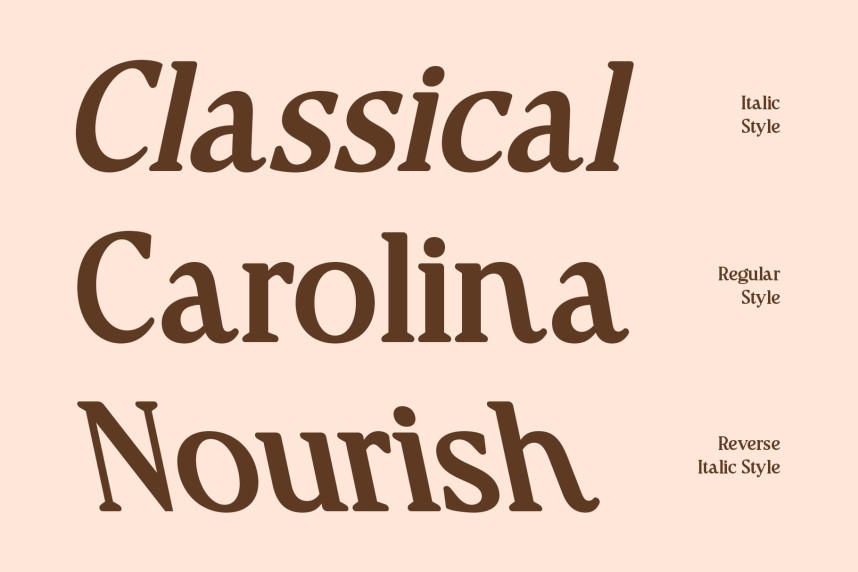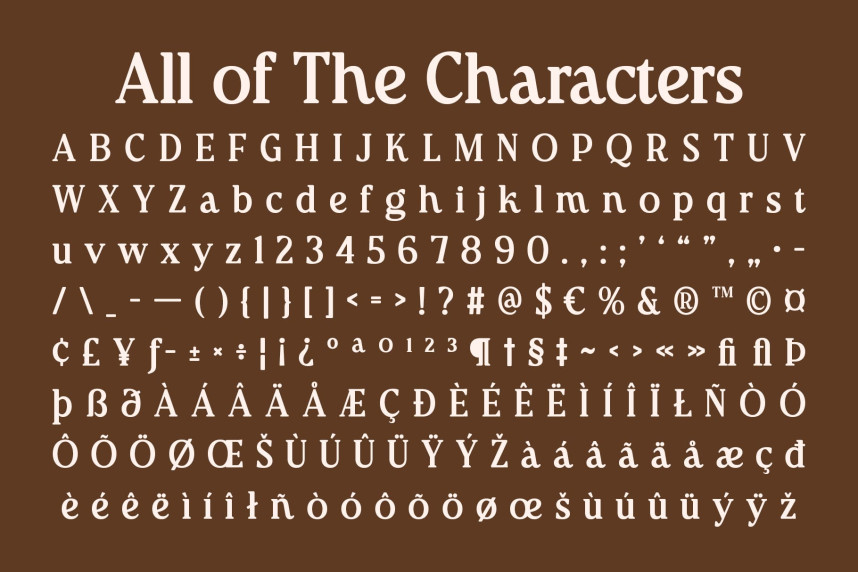
CS Raluca Font
CS Raluca Font – Retro Spirit with Timeless Energy Bold Retro Font with Playful Character. This is a timeless retro serif font that brings the charm of the past into modern design. Its bold, curvy shapes and playful energy capture the essence of vintage typography, making it perfect for projects that celebrate nostalgia and creativity.